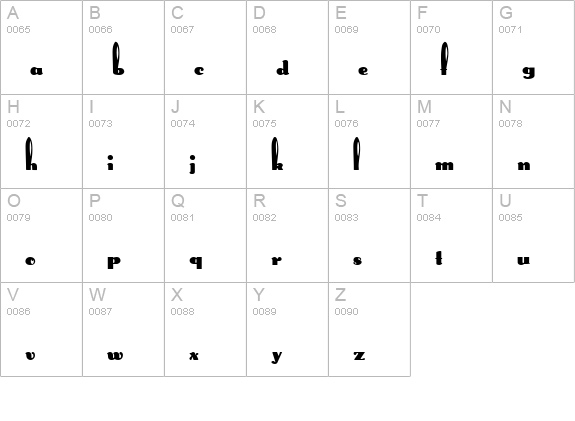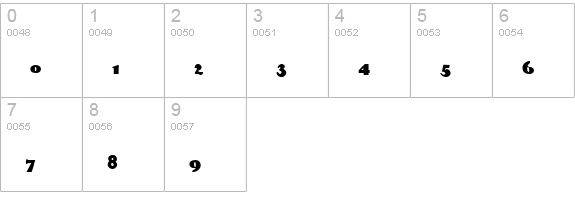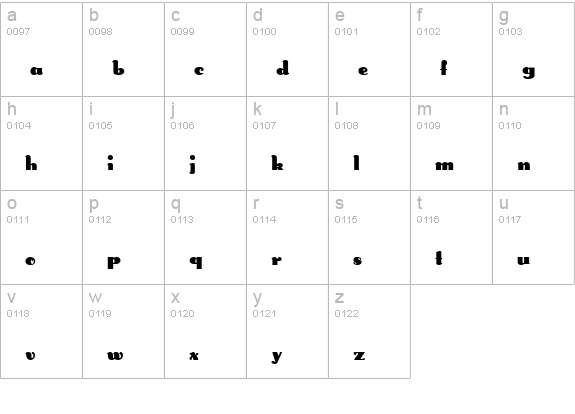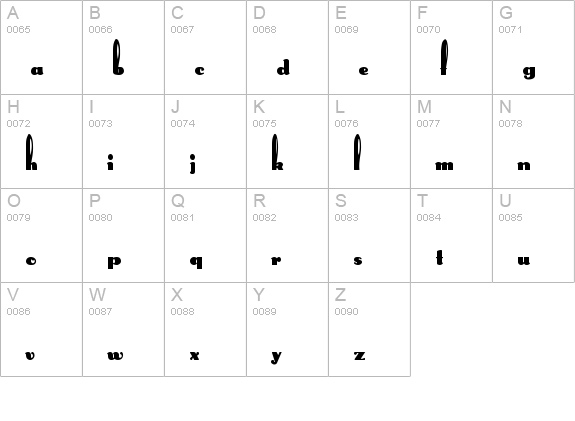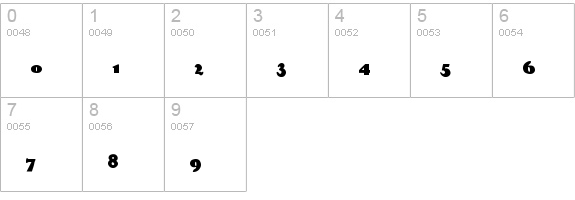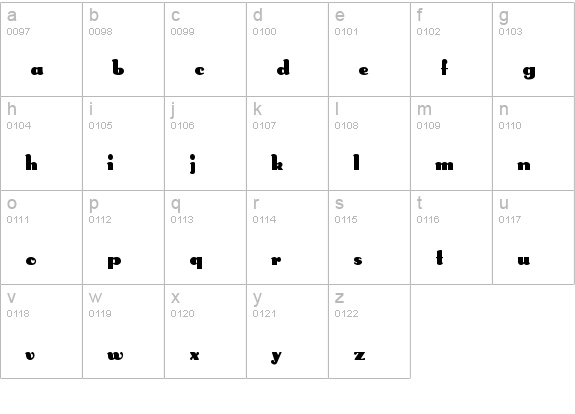
RabbitEars Regular is the standard, neutral variant in the RabbitEars typeface family \xE2\x80\x94 well suited to general body text, paragraphs, and standard typographic work.
RabbitEars Regular is a charming and versatile font that exudes a playful and friendly vibe. With its rounded edges and smooth curves, this font captures the essence of a fluffy bunny hopping through a meadow. The letters are perfectly balanced, making it easy to read and suitable for a wide range of designs. This font is not only visually appealing but also incredibly convenient, as it is available for free download at FontsMarket.com. Whether you're a graphic designer, a blogger, a business owner, or simply someone who appreciates beautiful typography, RabbitEars Regular is sure to enhance your projects. With its generous spacing and legible letterforms, RabbitEars Regular is perfect for headlines, logos, posters, invitations, and so much more. The versatility of this font allows it to adapt effortlessly to any design concept, whether it be a whimsical children's book, a modern website, or a vibrant advertising campaign. The attention to detail in RabbitEars Regular is stunning, from the precise curves of each letter to the subtle variations in stroke thickness. This font is a testament to the skill and craftsmanship of its creator, and it will undoubtedly elevate any project to new heights. So why wait? Download RabbitEars Regular for free at FontsMarket.com and add a touch of whimsy and charm to your designs today. Whether you're aiming for a lighthearted and fun aesthetic or a more sophisticated and modern look, this font has got you covered. Don't miss out on the opportunity to freely access this incredible font and let your creativity soar.